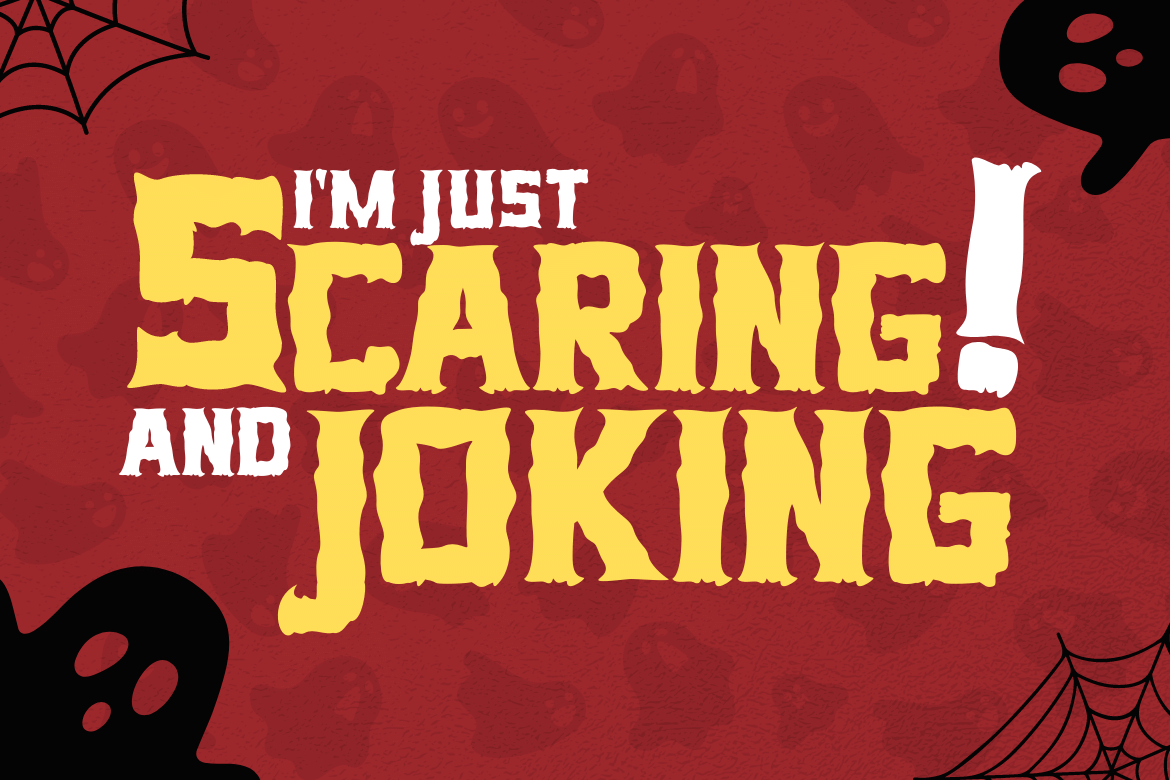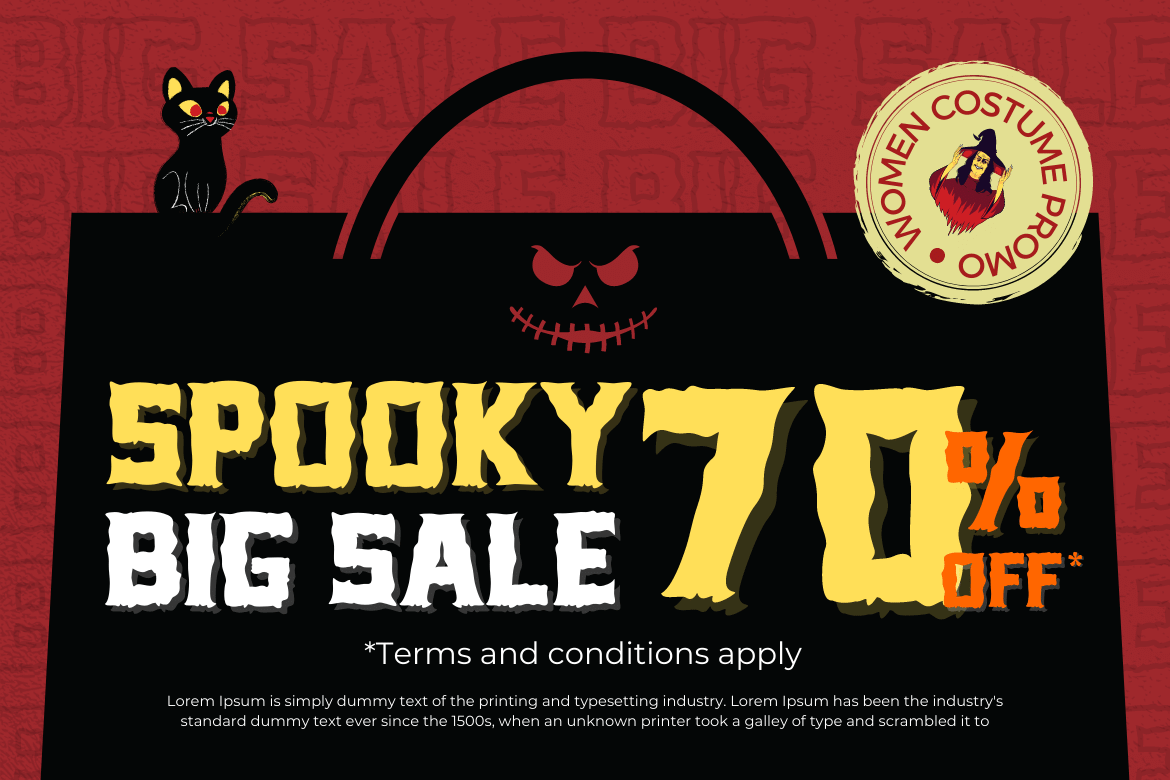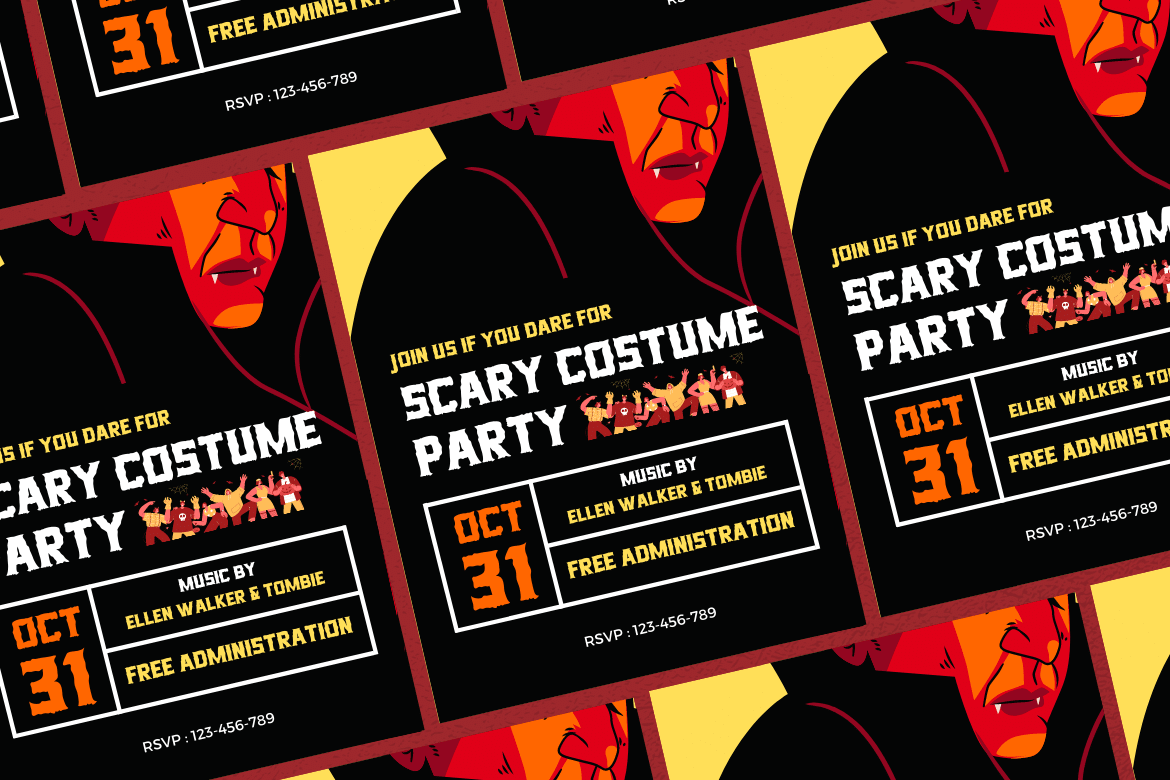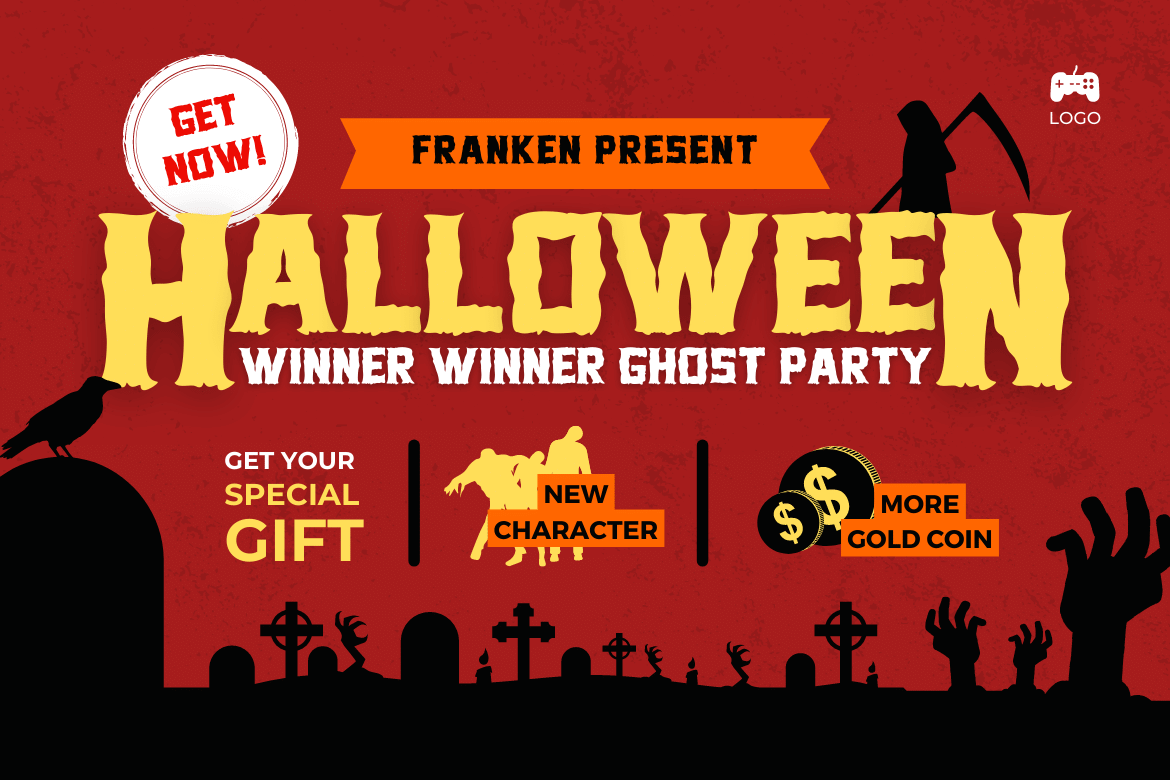
Haweni Font
Haweni Display Font
Halloween has never been so much fun. You don’t need to go near a spooky house in the dead of night or deal with creepy creatures while you wait for trick-or-treaters to pass out candy. With this Halloween font and our new Halloween-themed templates, it will be easy to get your Halloween party started without all that hard work!
Of course with this font your various design projects will be perfect and amazing, get a beautiful title and start using our font for your special project.